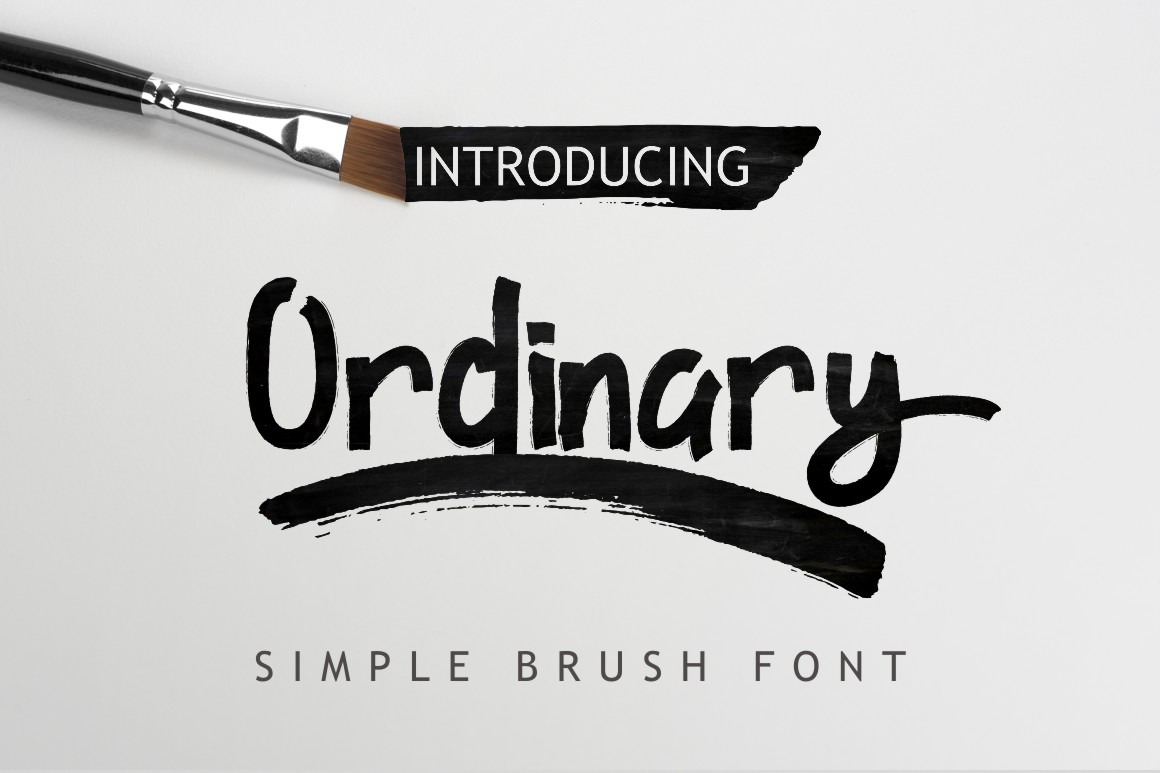
Ordinary Brush Font
Introducing Ordinary Brush Font a simple brush font
Suitable for use as the title, either used as a logo, title product, store, and your artwork.